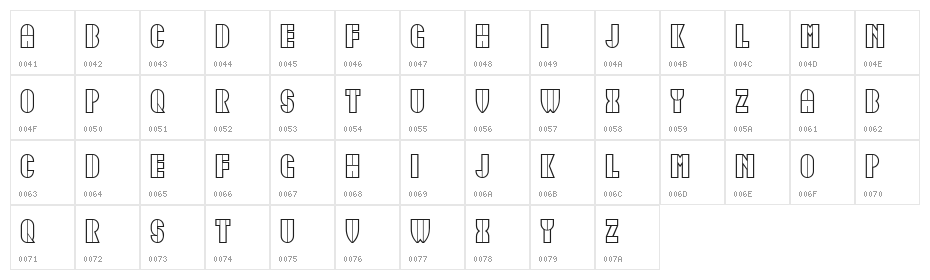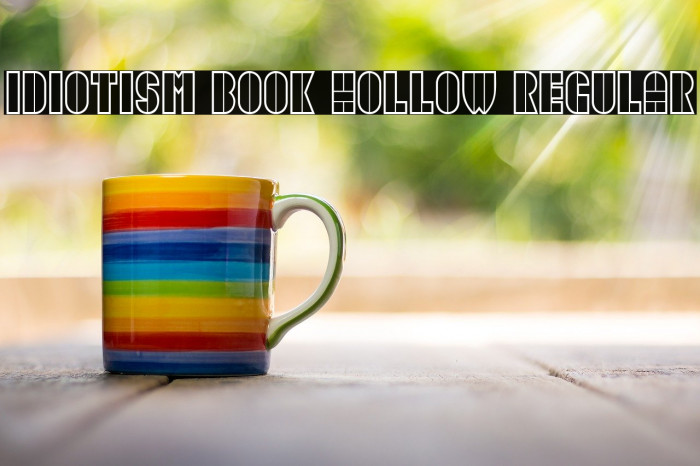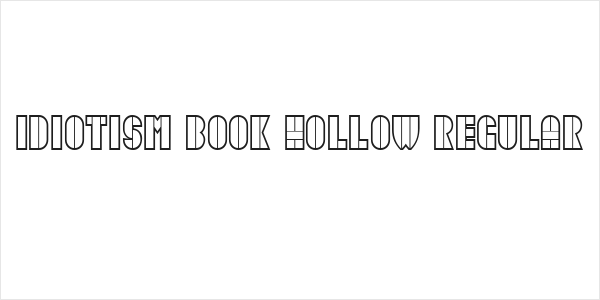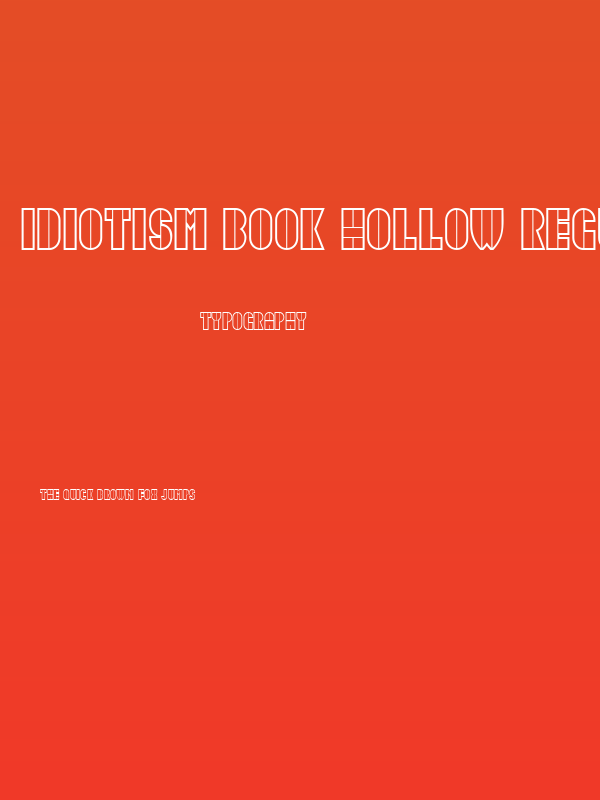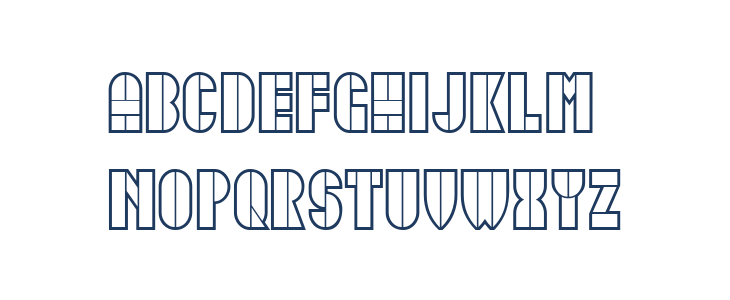
Idiotism Book Hollow Regular Font
Idiotism Book Hollow Regular Description
This font features a unique hollow design with bold, geometric shapes that create a striking visual impact. Each character is outlined with a consistent thickness, giving it a structured and modern appearance. The letters are constructed with straight lines and sharp angles, offering a futuristic and industrial feel. The hollow aspect of the font allows for creative use of background colors or textures to shine through, making it ideal for eye-catching designs. The uppercase letters are uniform in height, and the overall style is both bold and decorative, making it suitable for attention-grabbing headlines or artistic projects.